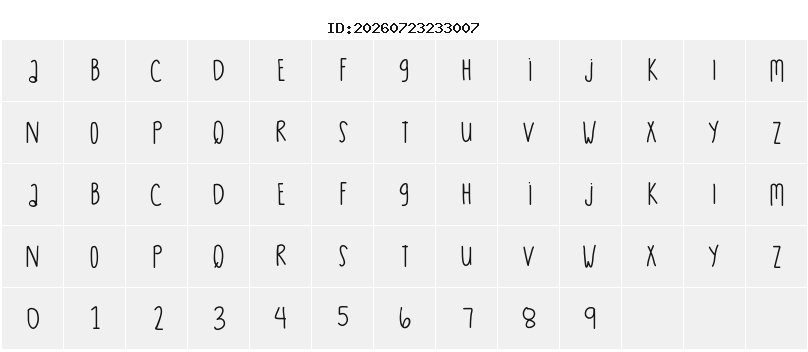
• Font Name: ExpressoCaffe
• Full Font Name: ExpressoCaffe
About ExpressoCaffe.ttf
ExpressoCaffe.ttf is a modern, elegant sans-serif font designed for ultimate readability and visual harmony. Perfect for branding, headlines, web design, and print materials.